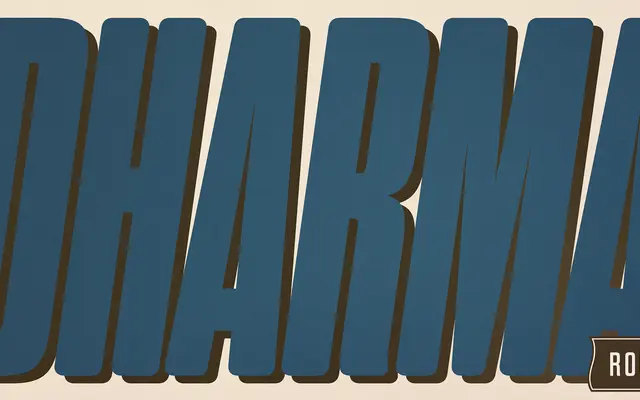
Dharma Gothic Rounded
A condensed display sans with rounded terminals drawing from 19th-century wood type, offering 42 styles for poster and titling work.
Built around the proportions of Victorian wood type, this family softens the harder edges of the original Dharma Gothic with rounded terminals that give it a warmer, more approachable character. Forty-two styles make it a broad workhorse for display settings, with OpenType alternates for g, r and y, tabular figures for data layouts and a companion Gothic Extras set of borders and ornaments lifted from Hamilton's 1800s catalogues. Best suited to posters, packaging and titles where a retro vernacular tone is wanted without full distress.
A condensed display sans with rounded terminals and an antiqued character, drawing from 19th-century wood type traditions. Its bold proportions and retro warmth place it firmly in the display category rather than a general-purpose grotesque.